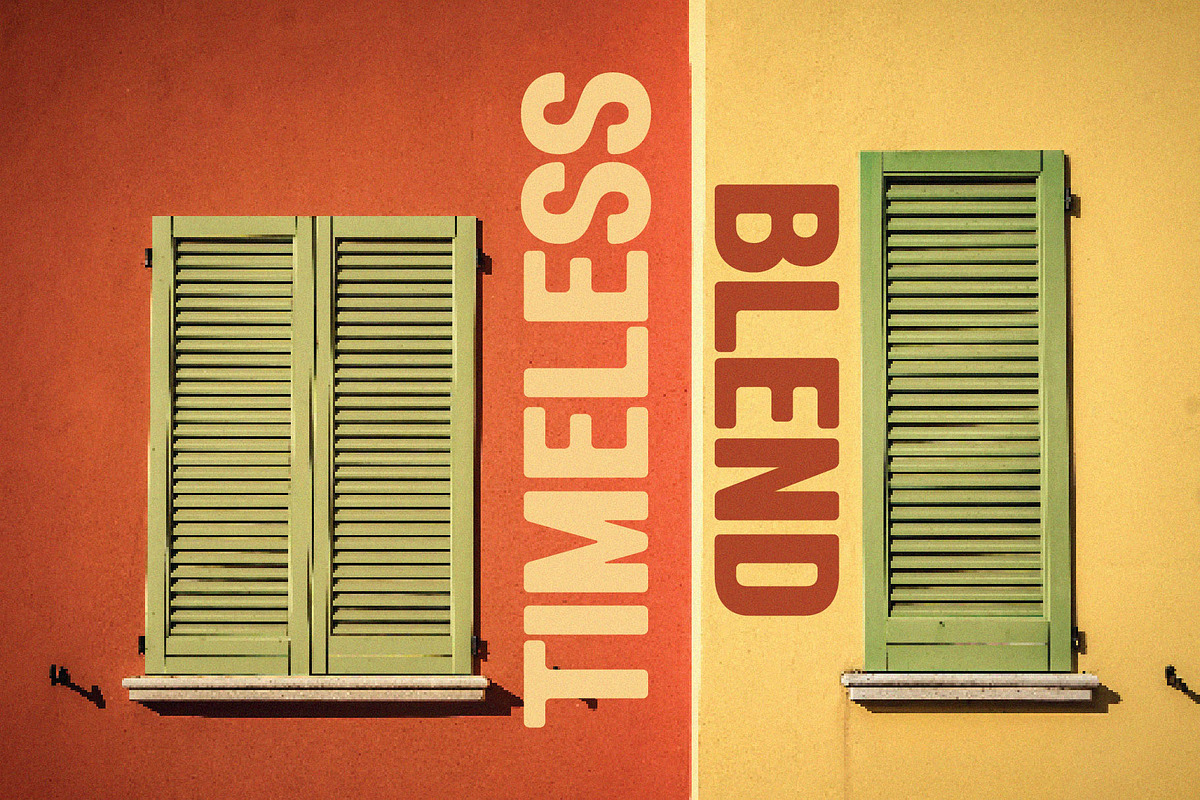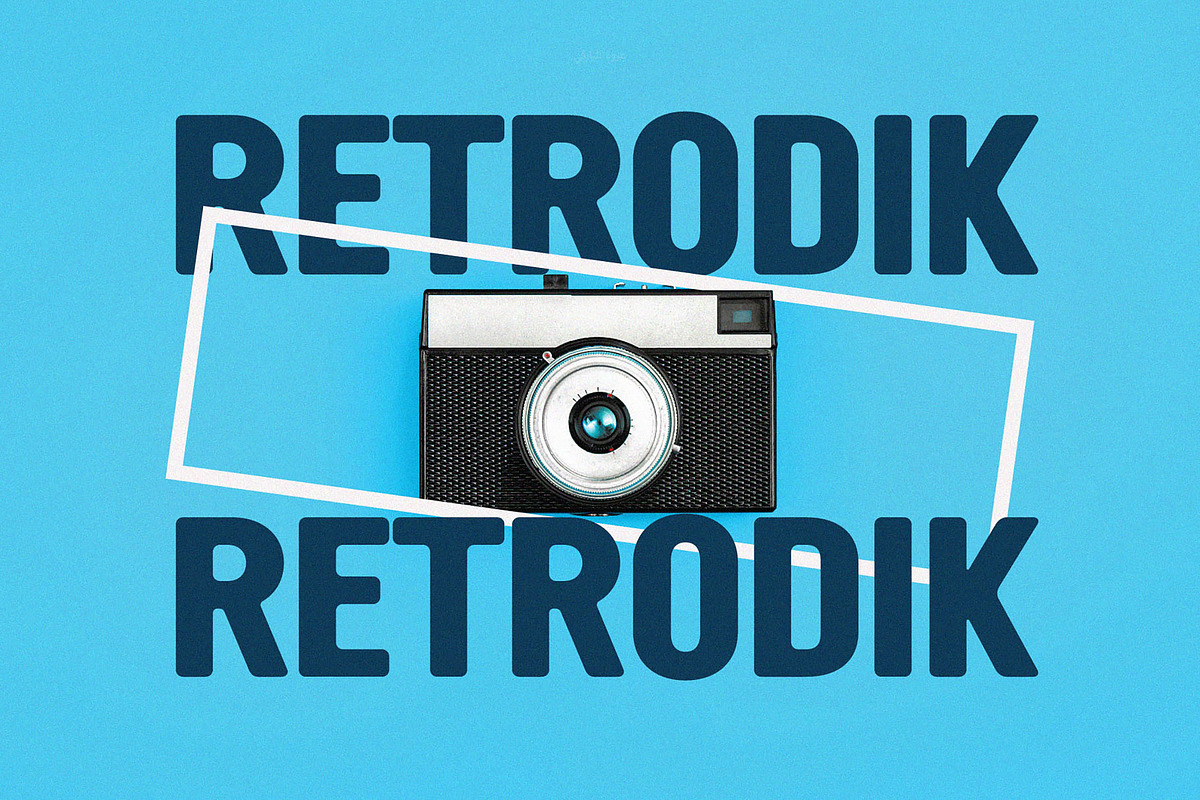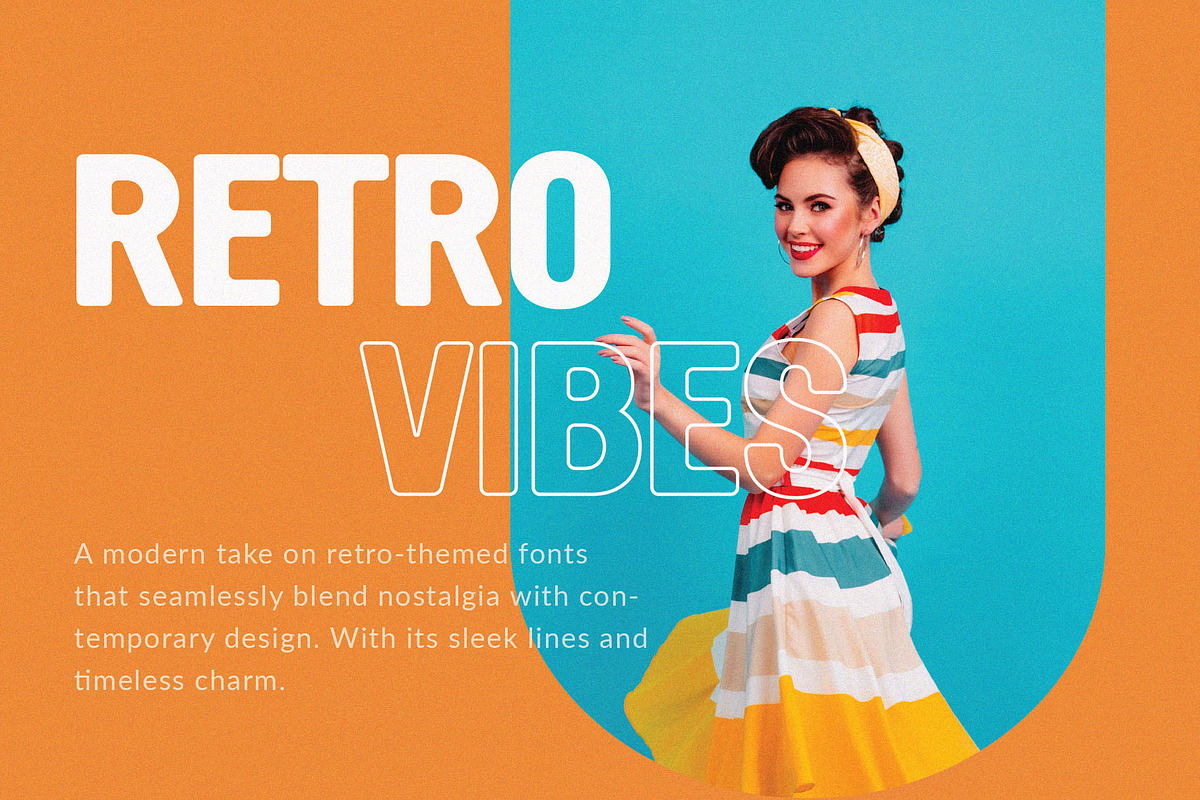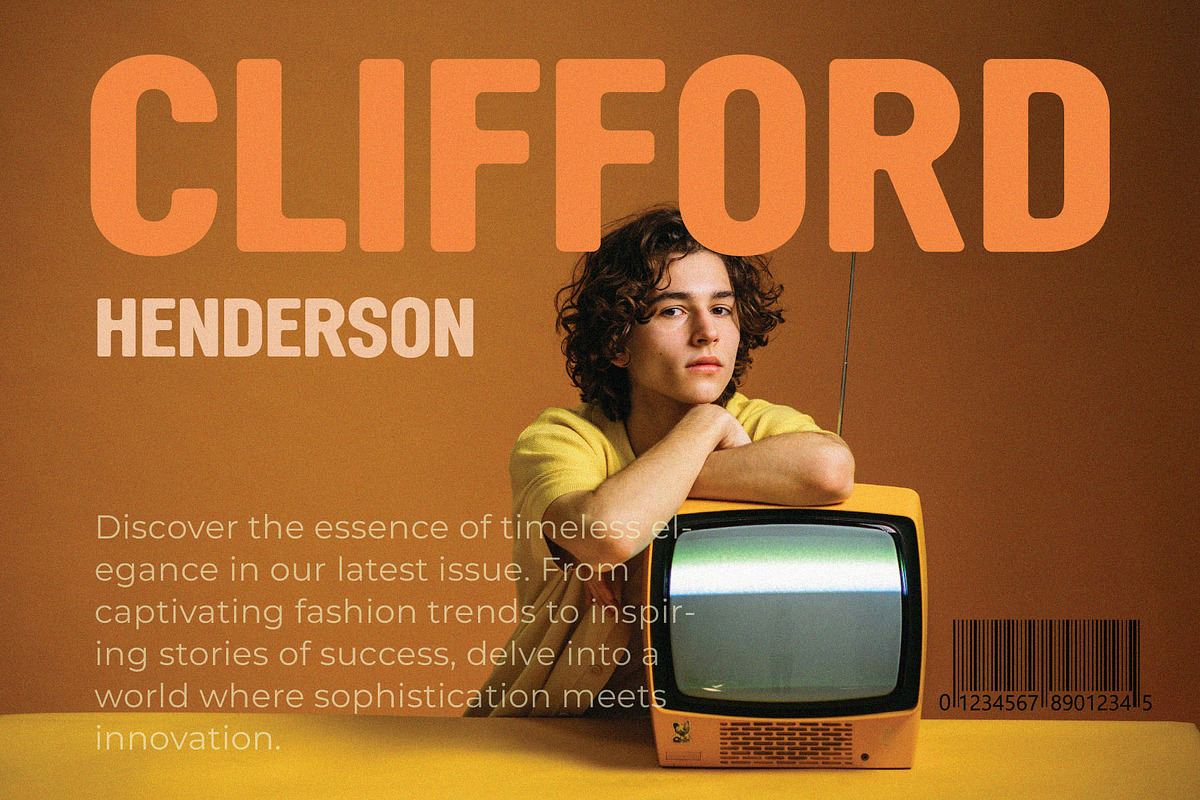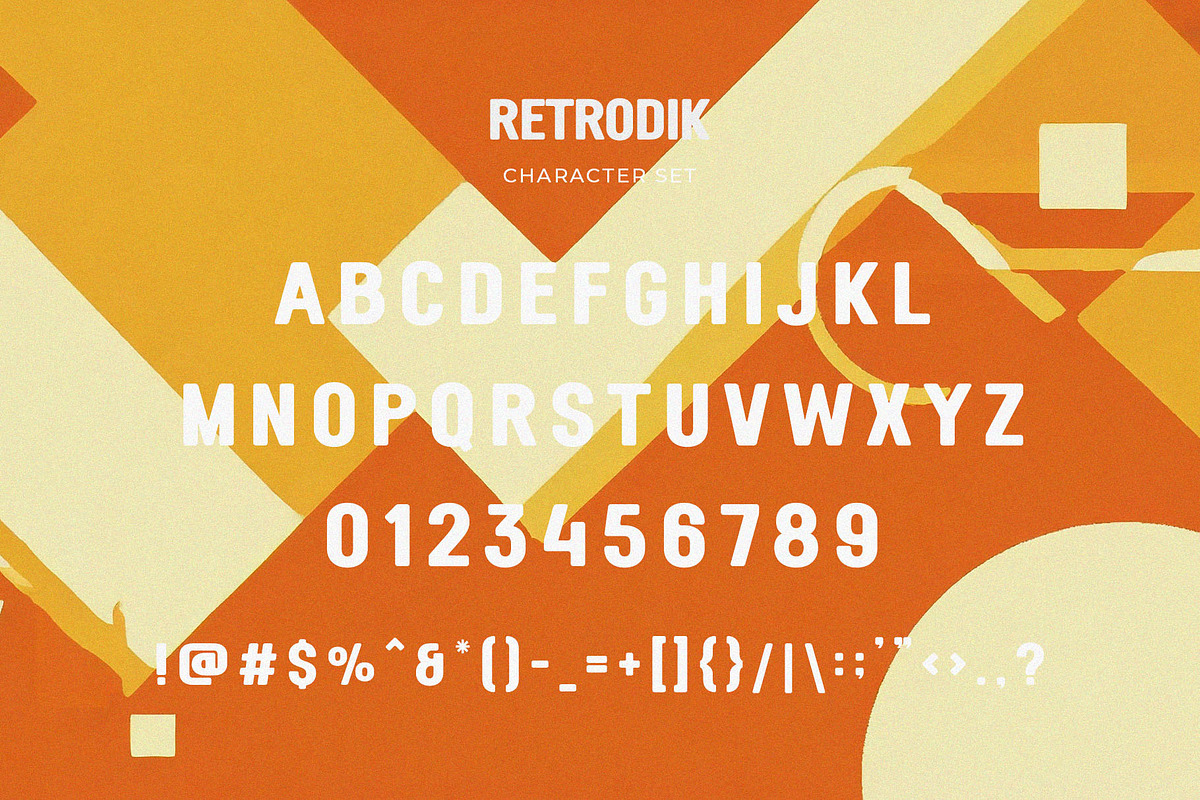
Retrodik - Retro Sans Serif
Introducing Retrodik - Retro Sans Serif. Retrodik is a modern and simple font, best used as a display for headings, logos, branding, magazines, product packaging and invitations. Thank you.